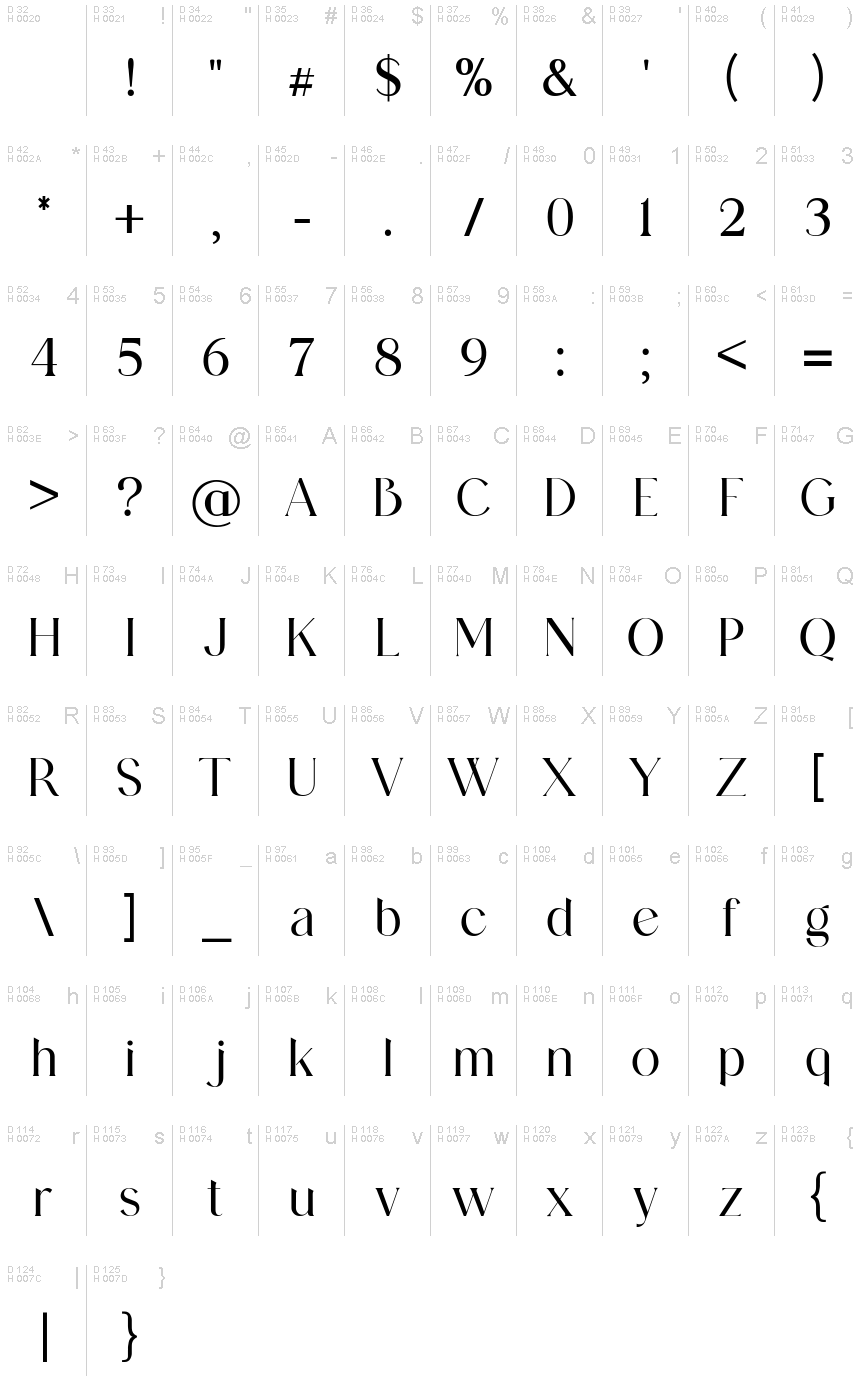
Luxiachy
Luxiachy, crafted by UI Creative, is an elegant serif font that exudes sophistication and timeless charm. Its refined lines and balanced proportions make it a standout choice for designs needing a touch of classic allure. The distinguishing features of Luxiachy include its graceful curves and sharp serifs, which provide a perfect blend of modernity and tradition.
This exquisite font is ideal for high-end branding, editorial design, and luxurious invitations. Its versatility ensures that it can seamlessly adapt to various contexts, providing clarity and elegance to any project. Embrace Luxiachy for a sophisticated visual language that commands attention while maintaining an air of refined subtlety.